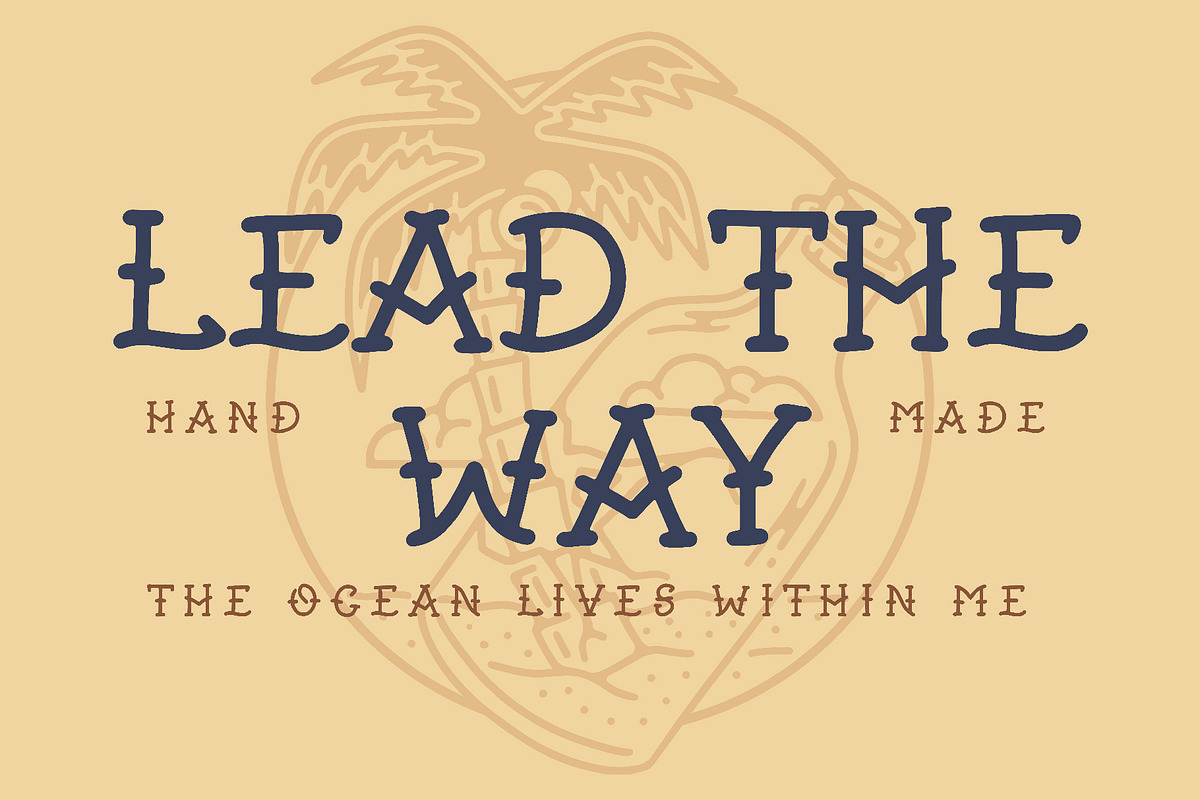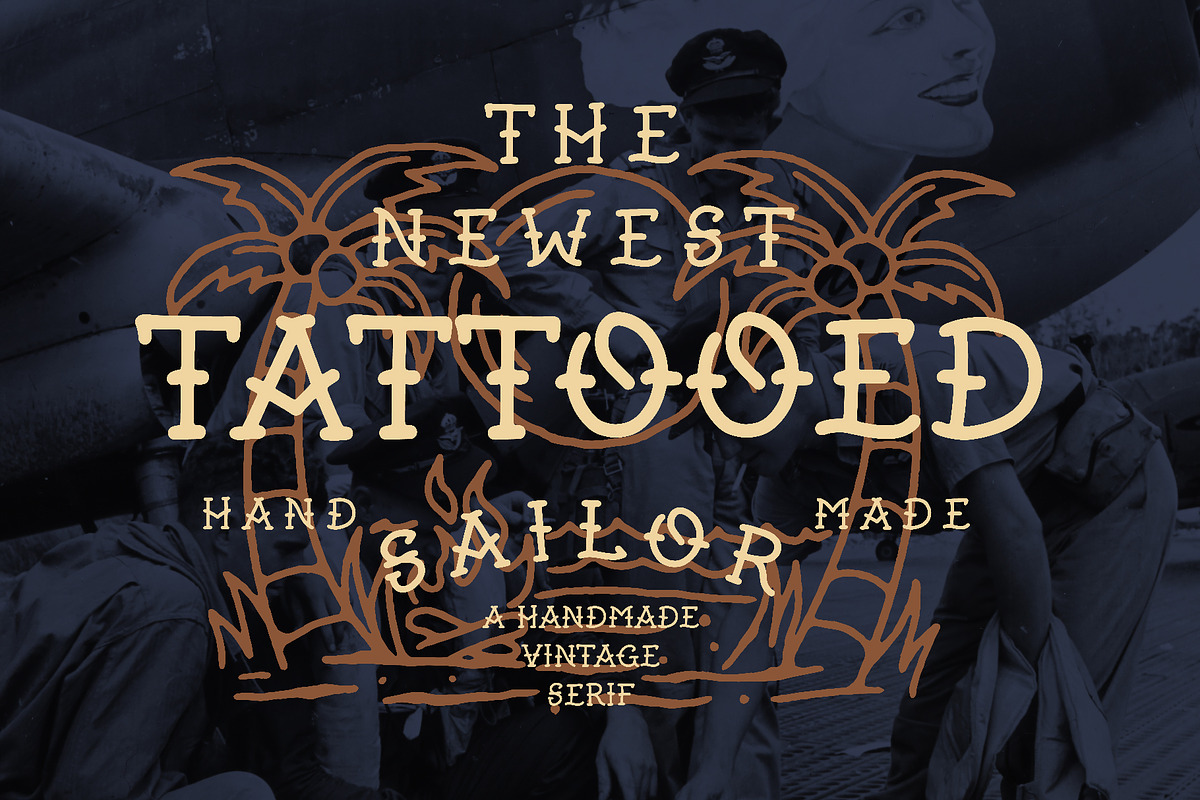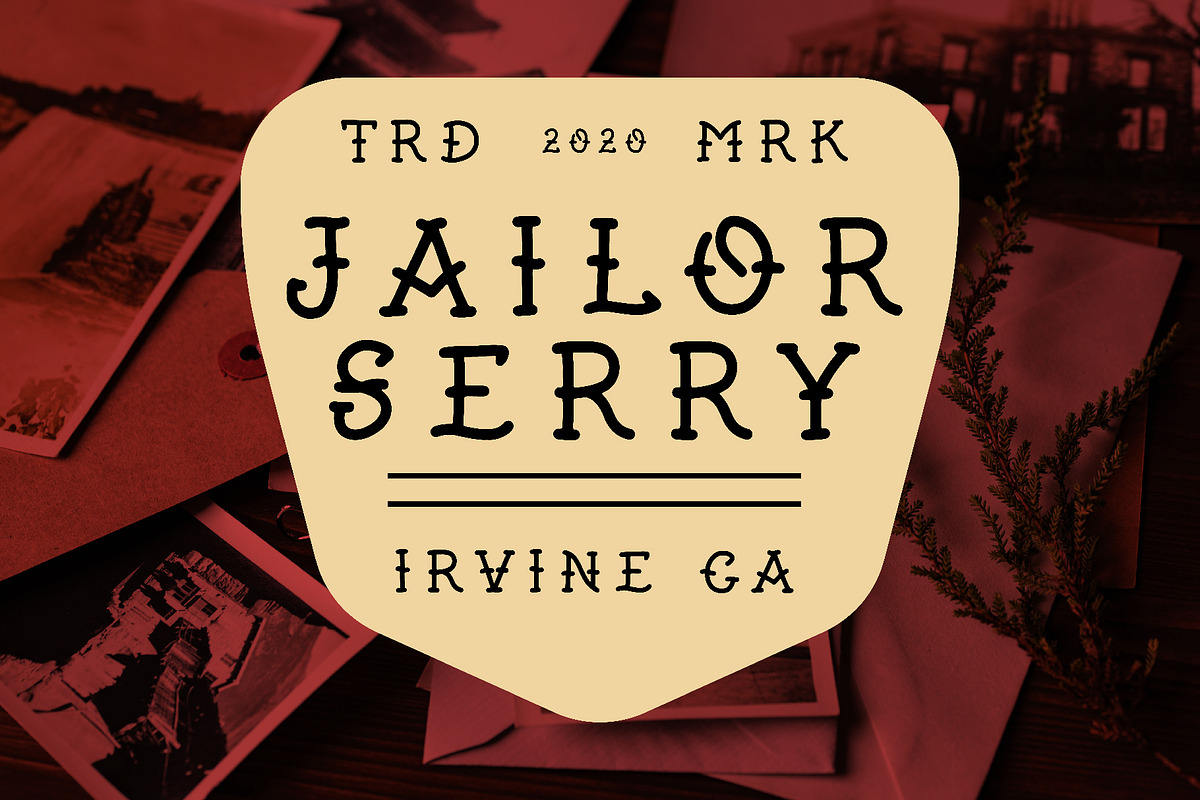
Tattooed Sailor | Vintage Serif Font
Introducing, Tattooed Sailor, A Vintage Sailor’s Serif Typeface
This versatile vintage serif font includes many different glyphs and uppercase letters. This font is great on food and beverage, alcohol and apparel. Tattooed Sailor can work within a plethora of projects, making it very utilitarian.
This font also works great within badges and partners well with the free vector bundle included within a purchase.